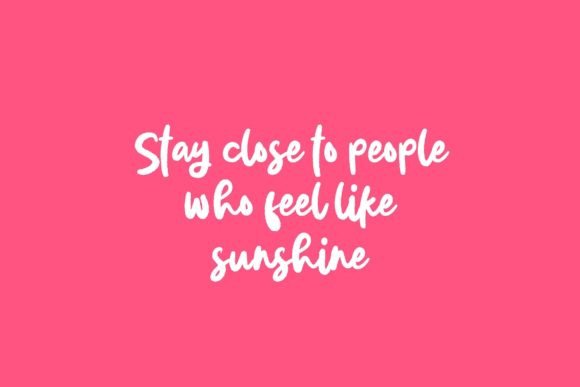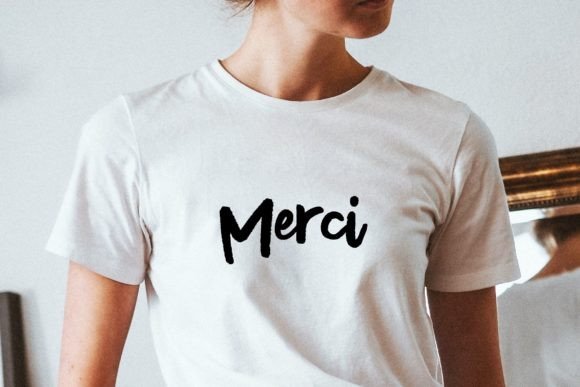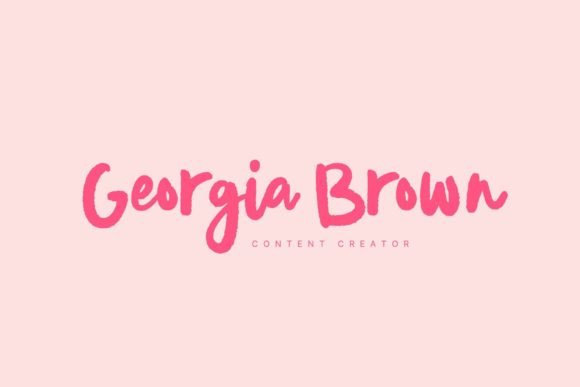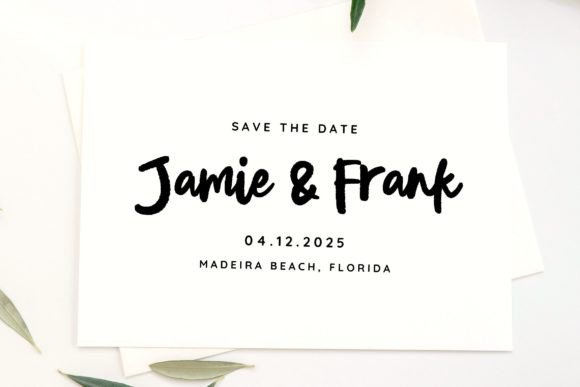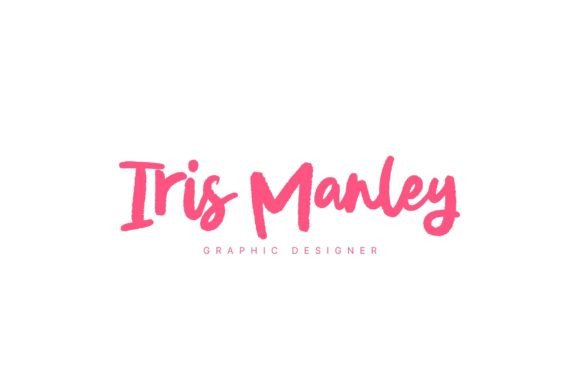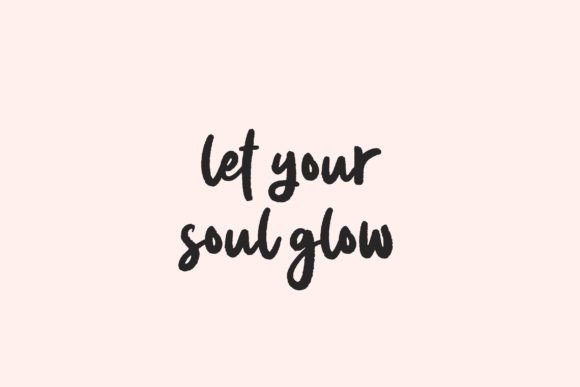
Introduction to Shineday Font
Have you ever stared at a blank page, trying to come up with the perfect design for a creative project? The cursor blinks, and your mind goes blank. Suddenly, the perfect font pops into your head, and everything falls into place. This is exactly what the Shineday Font can do for your next design.
This cool and bold handwritten script font is a design resource like no other. With its stunning aesthetic, it’s perfect for adding a personal touch to wedding invitations, thank you cards, quotes, and more. Whether you’re working on a logo, business card, or greeting card, the Shineday Font is sure to elevate your design. Plus, its transparent background makes it easy to layer over other elements, giving you endless possibilities for creativity.
Key Features of Shineday Font
- Perfect for designers seeking a unique, modern aesthetic for their creative projects
Honest Review: Shineday Font
I recently had the chance to try out the Shineday Font, and I must say it’s been a game-changer for my creative projects. ✨
The font is perfect for designs that require a modern and sleek aesthetic, and its transparent background makes it easy to overlay on any image or background. This design resource has been a lifesaver for me, especially when I need to create visually appealing graphics on short notice.
Here are some of the things that I love about the Shineday Font:
- High quality font with a unique and modern design
- Transparent background for easy overlaying on images or backgrounds
However, I do have to mention a few limitations:
- May not be suitable for designs that require a more traditional or classic look
- Some users may find the font to be too modern or trendy
The Shineday Font is perfect for creating a wide range of designs, from logos and business cards to social media graphics and presentations. Its transparent background and high quality make it a great design resource for any creative project.
Tips for Getting the Most Out of Shineday Font
To get the most out of the Shineday Font, use it in conjunction with other high-quality design resources, such as graphics and images. Experiment with different font sizes and colors to create a unique and eye-catching design. Additionally, use the Shineday Font in a way that complements your brand and message, taking advantage of its versatility and style.
Alternatives to Shineday Font
Great Vibes is a high-quality, elegant script font perfect for creative projects requiring a touch of sophistication. It features a transparent background, making it ideal for use on various design resources, including logos and typography. Great Vibes is available for free download and is a great alternative to Shineday Font for designers looking for a more refined aesthetic.
When to use: For projects that require a luxurious feel, such as high-end branding or wedding invitations.
Comparison: Great Vibes has a more polished look compared to Shineday Font, making it suitable for more formal designs.
Pacifico is a beautiful, modern script font that works well for a variety of design resources, including website headers and social media graphics. Its transparent background and high-quality design make it an excellent alternative to Shineday Font. Pacifico is perfect for designers who want a font that exudes a sense of relaxation and calmness.